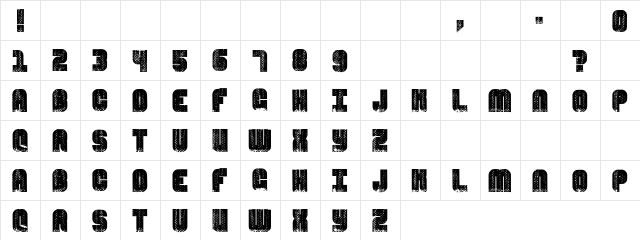
In Metro Caves Regular
| Foundry | Skyhaven |
| Designer | =^_^= |
Design Context for In Metro Caves Typeface
In Metro Caves is a composed and adaptable typeface that performs quietly and consistently across a wide range of design contexts.